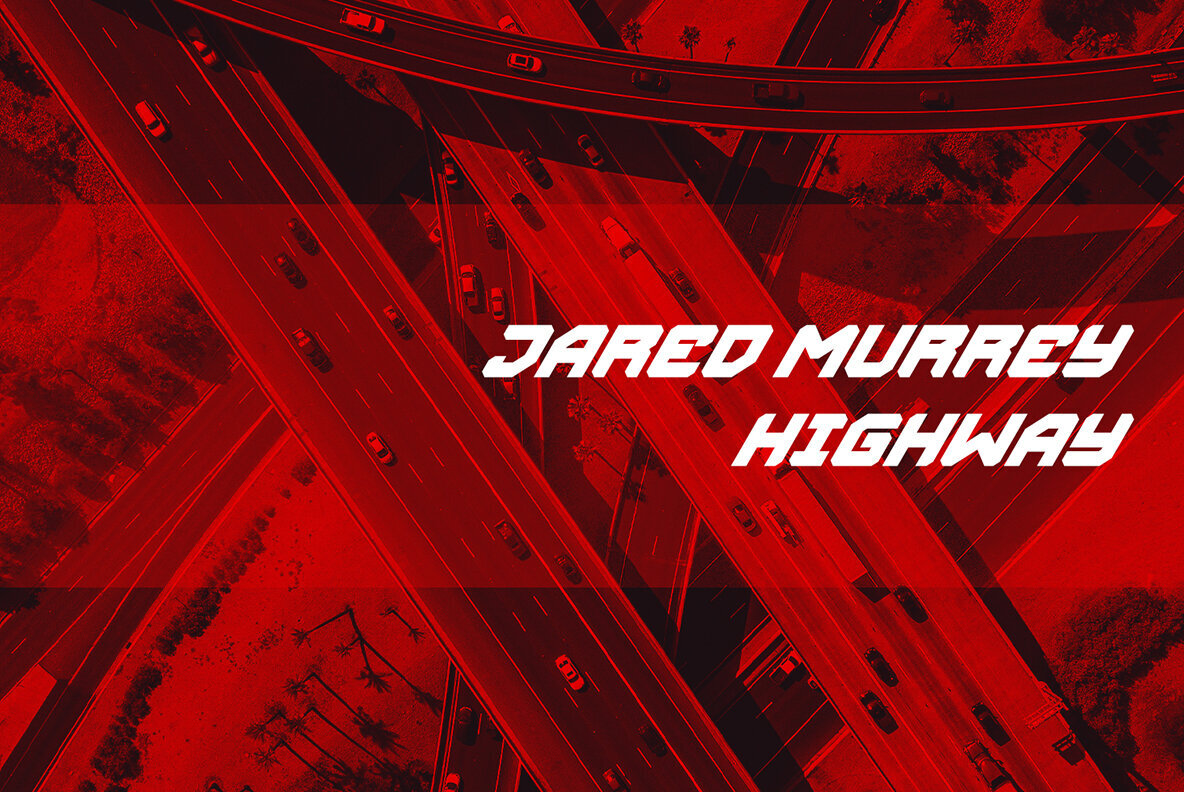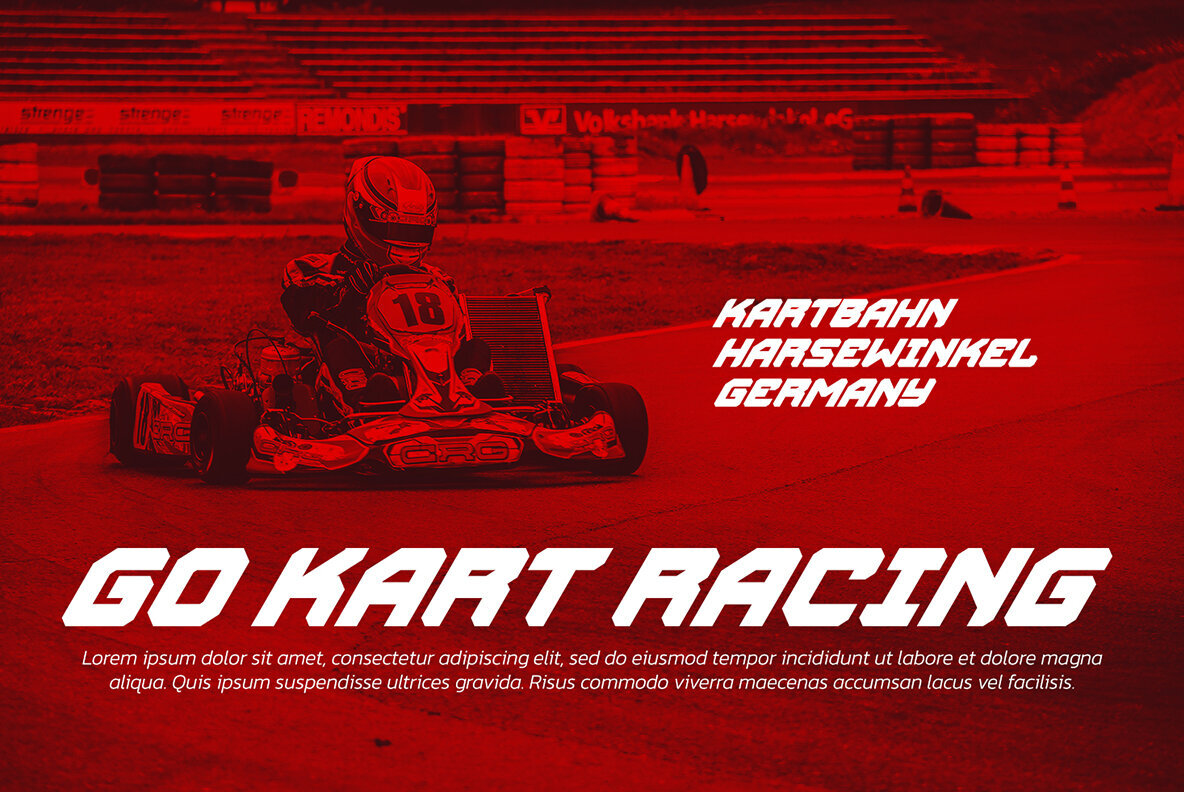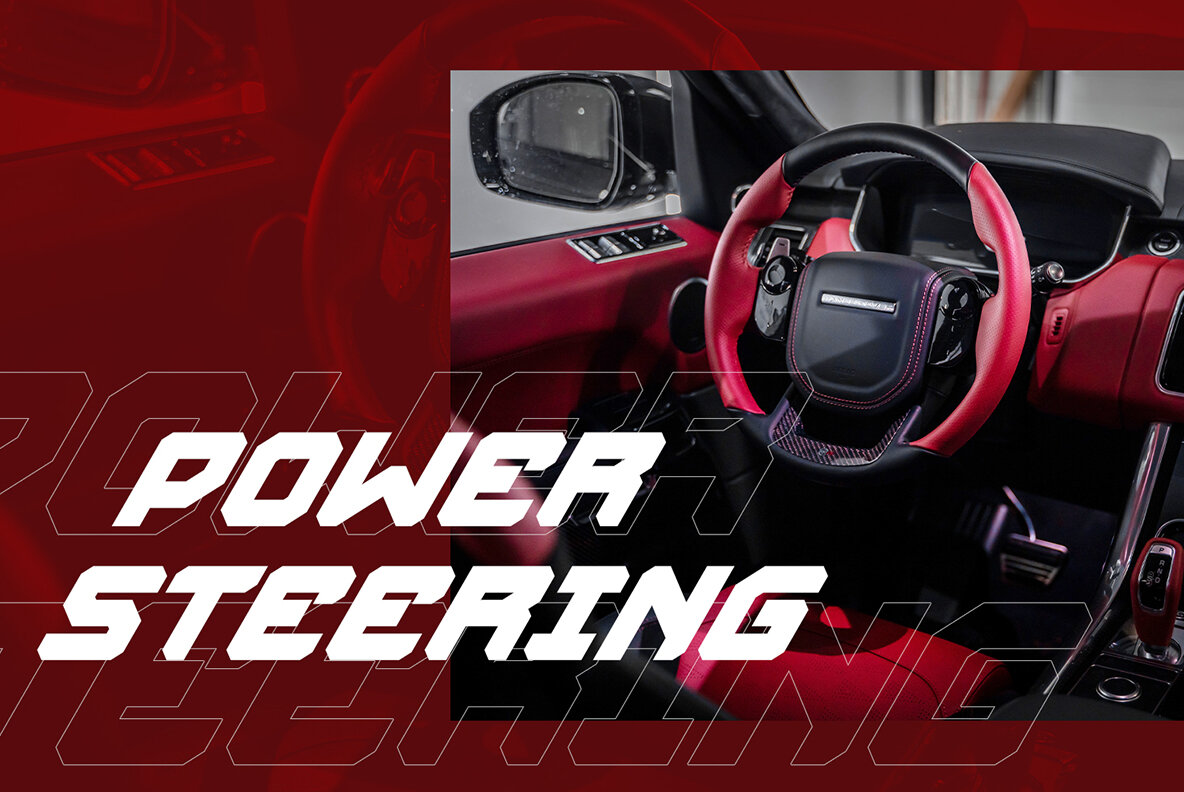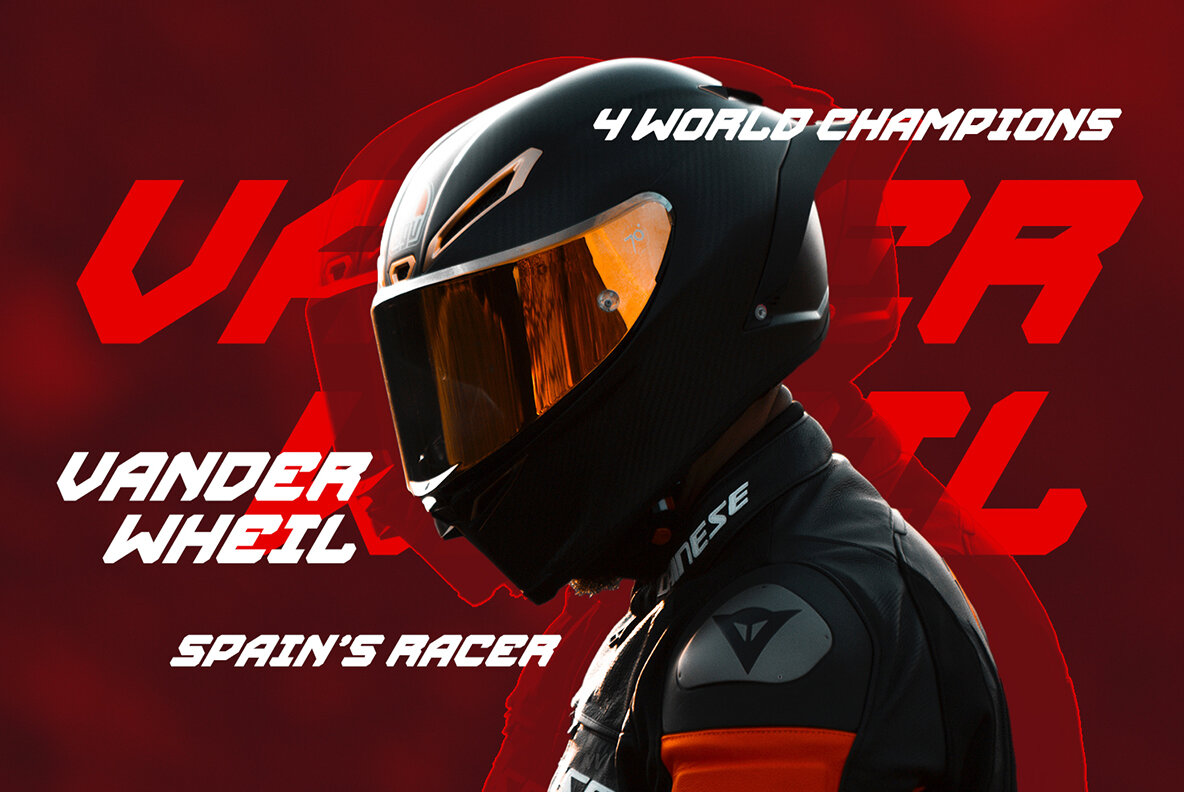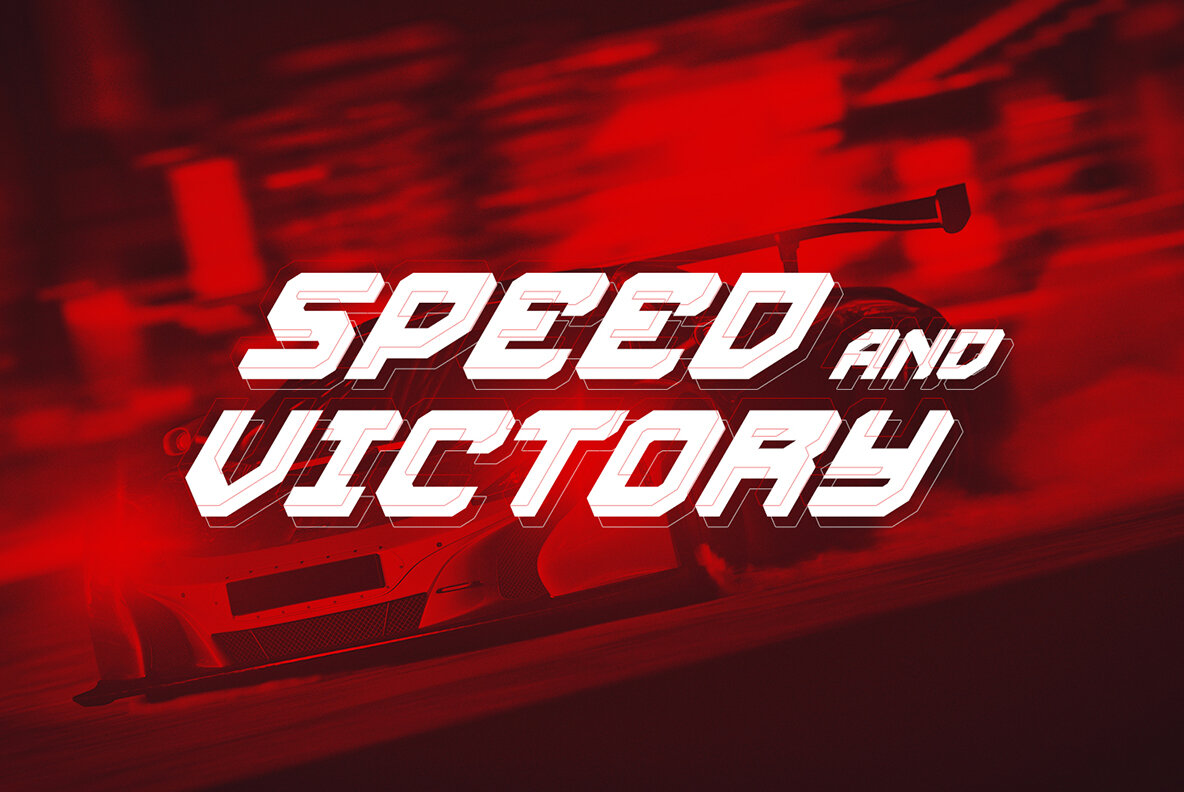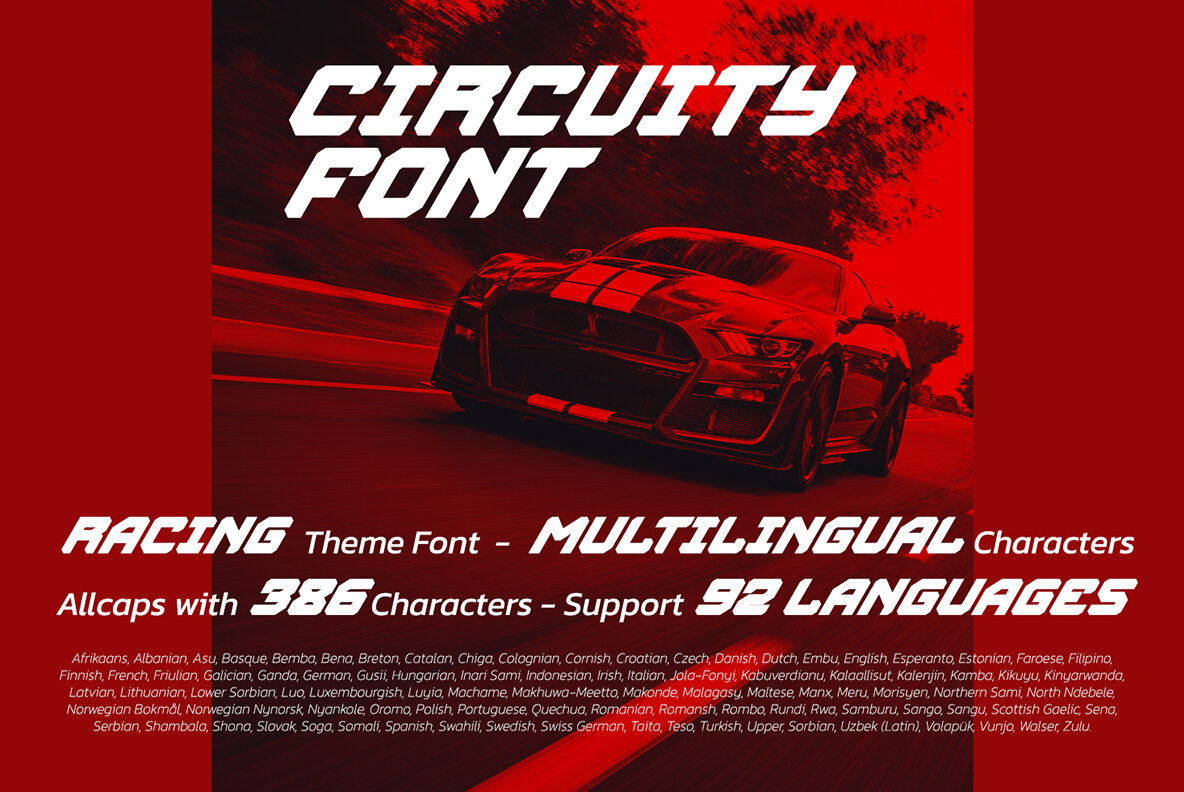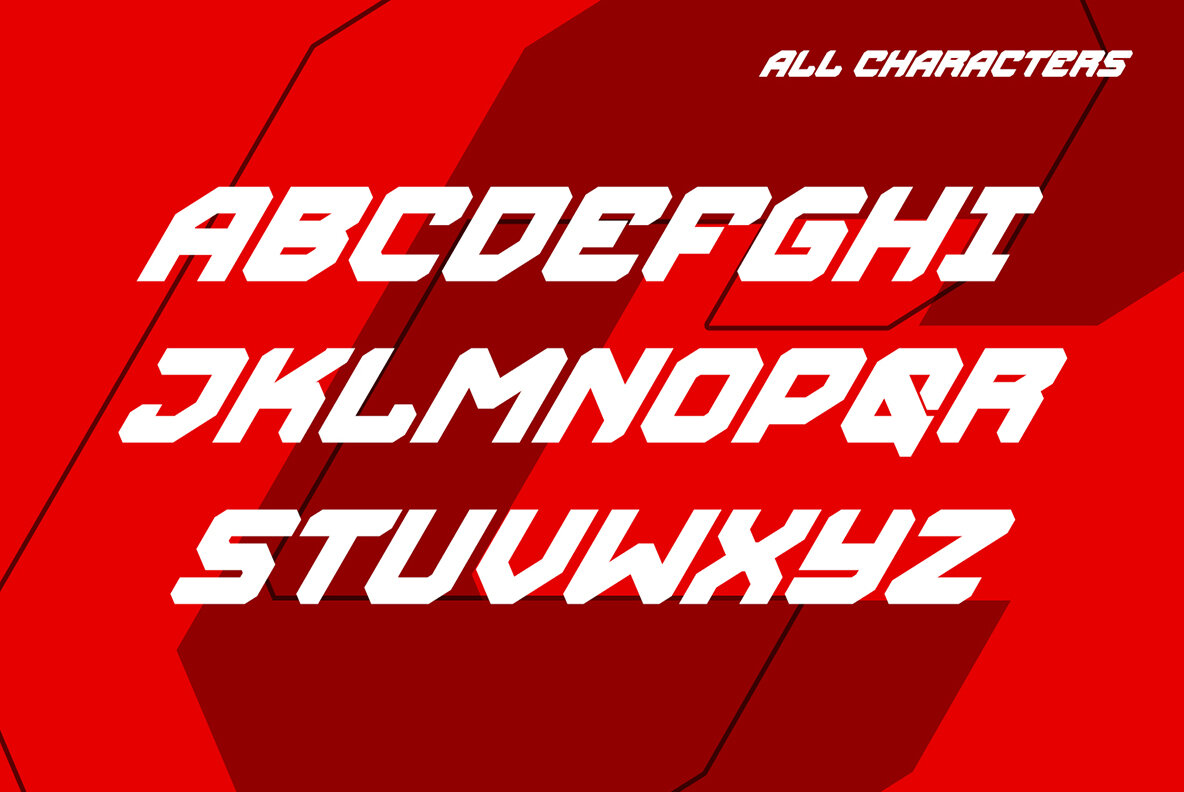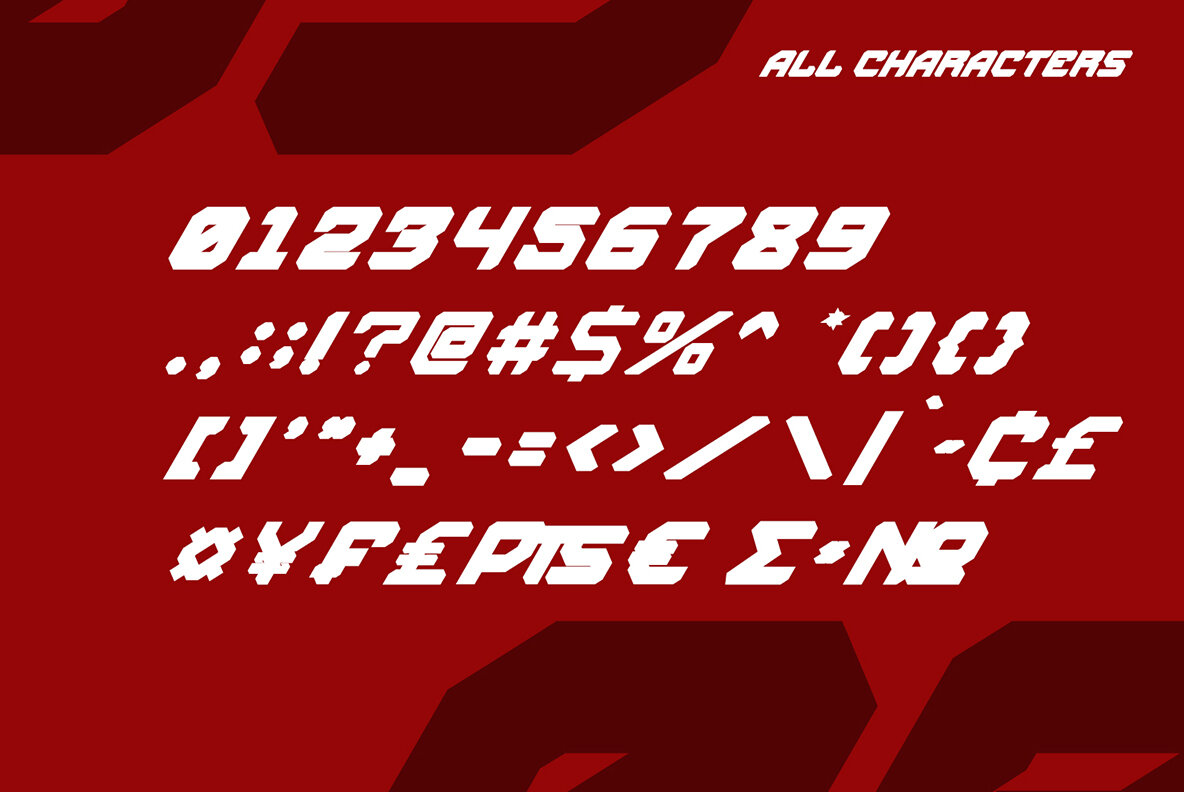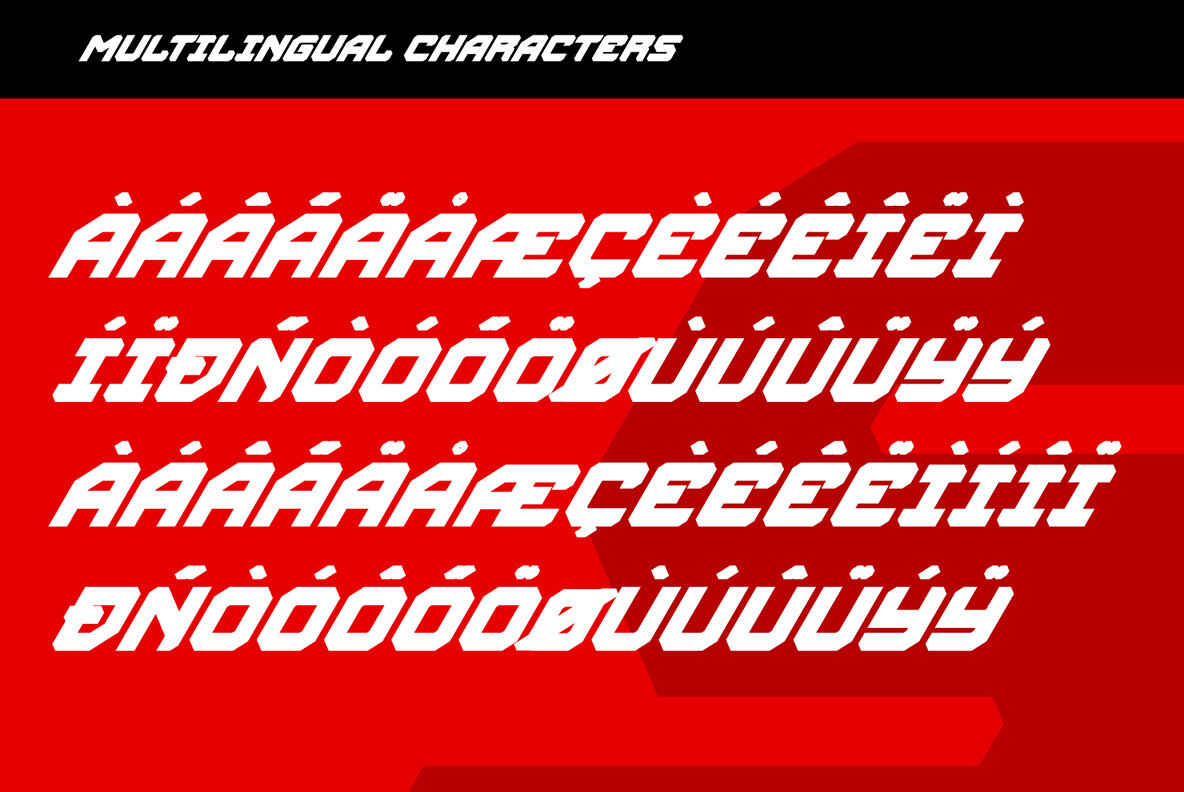
Circuity Font
Circuity Regular
Circuity, a distinctive display font, is crafted with a dynamic racing theme. It features modern capital letters that exhibit strength and boldness, making it perfect for impactful, large-sized text like titles. The font’s commanding strokes define its brave character, contributing to its unique style and versatility across various design applications. Ideal for use in diverse projects, Circuity enhances the appeal of posters, banners, logos, book covers, and more. Its striking design can also elevate merchandise, social media graphics, and printed products with ease. Explore its potential by viewing the font preview.Circuity: A Bold Display Font for Modern Designs